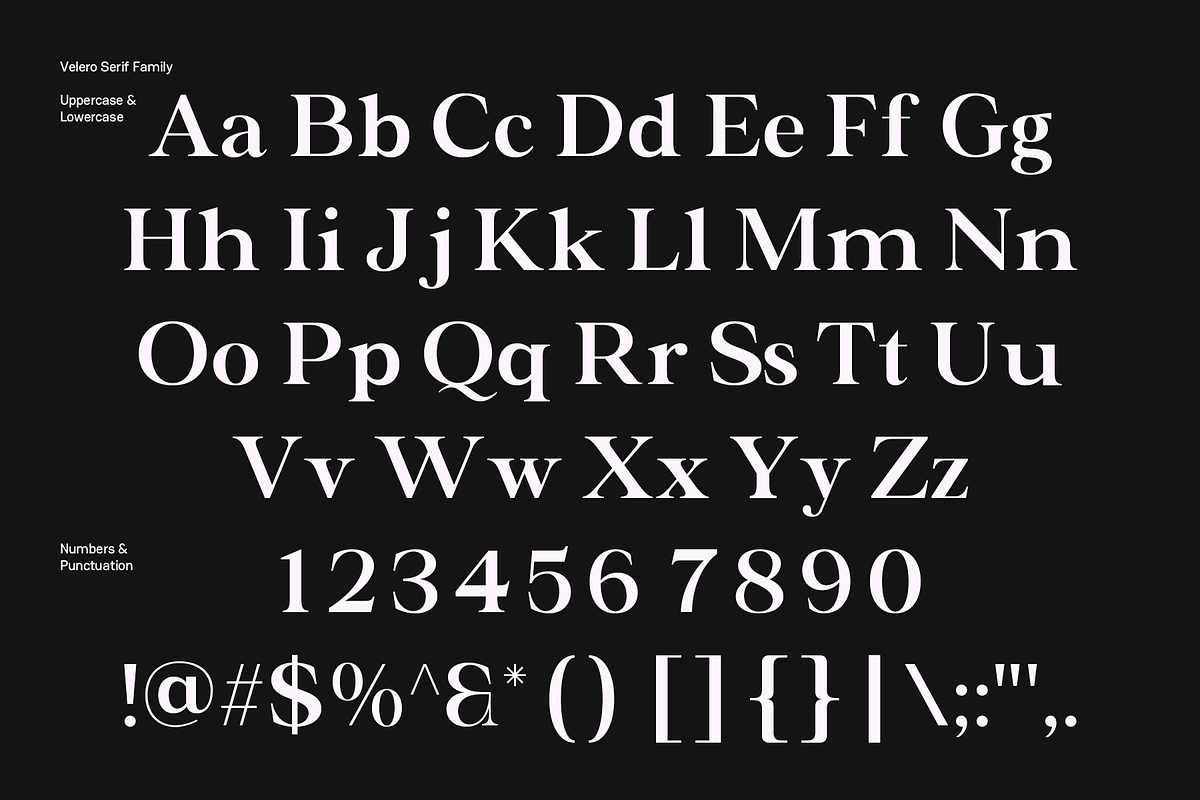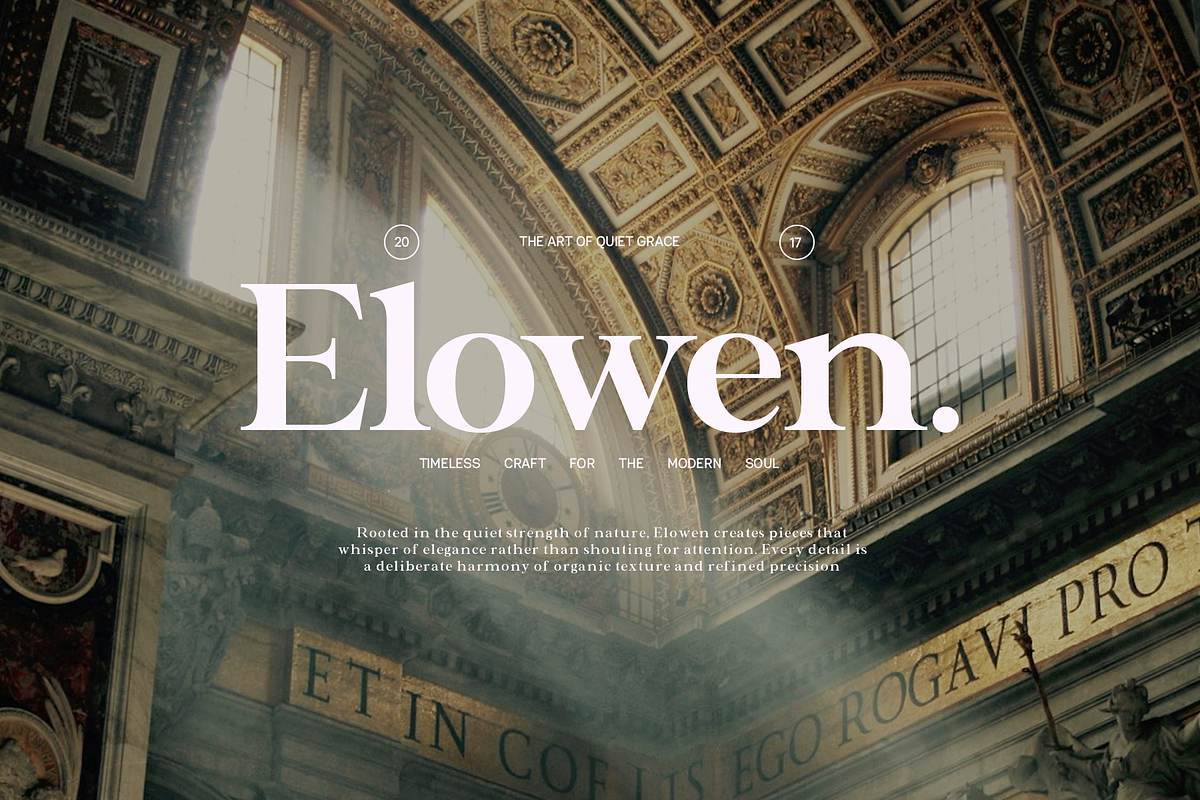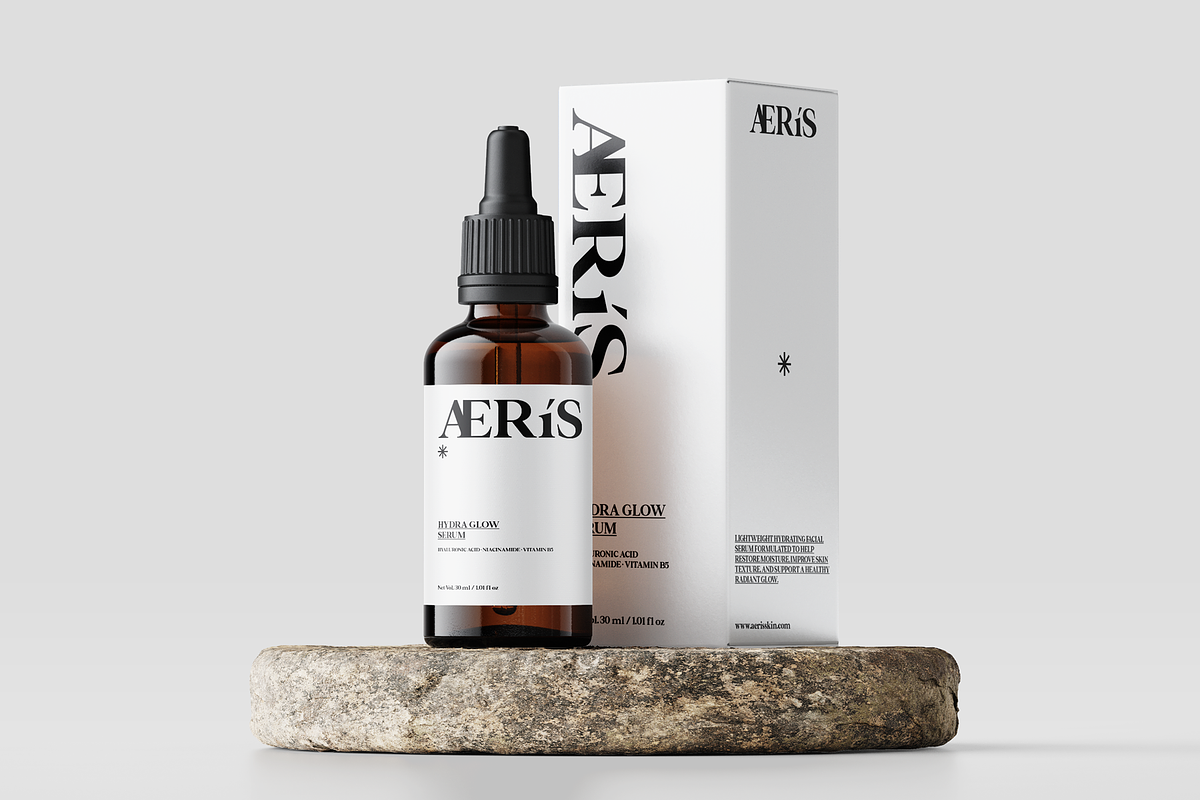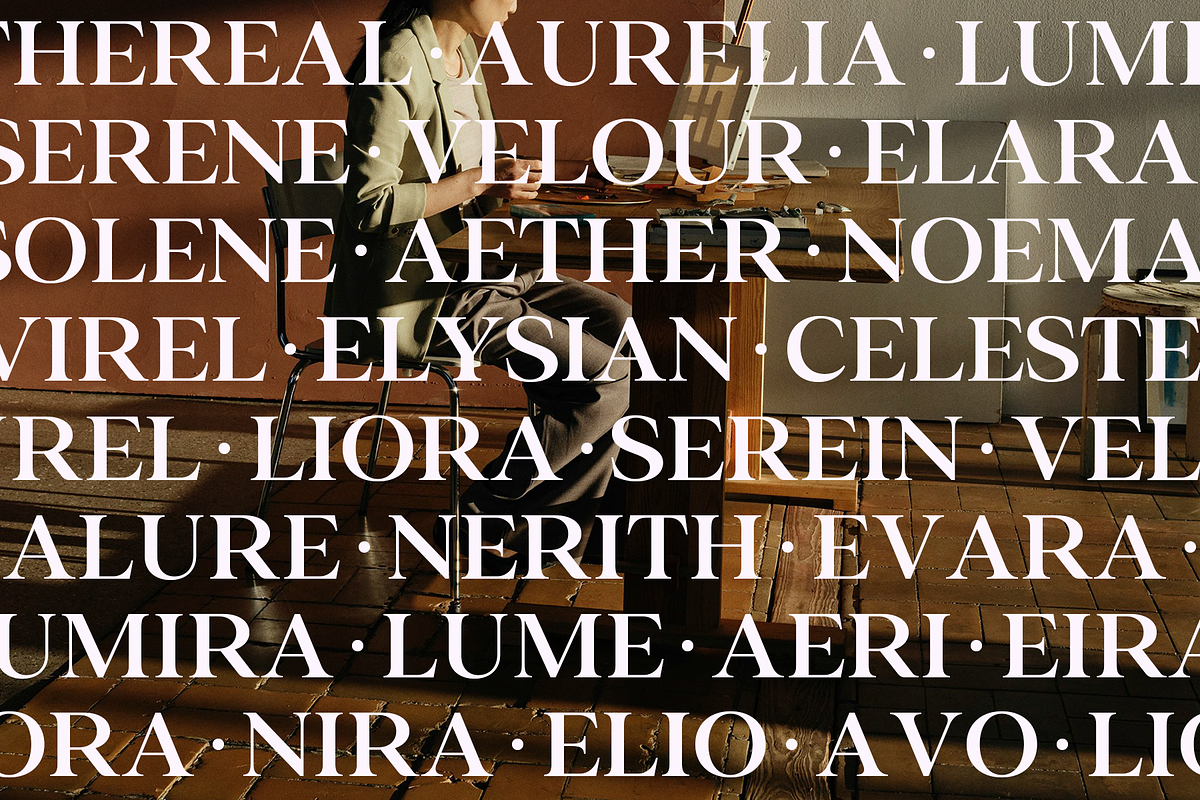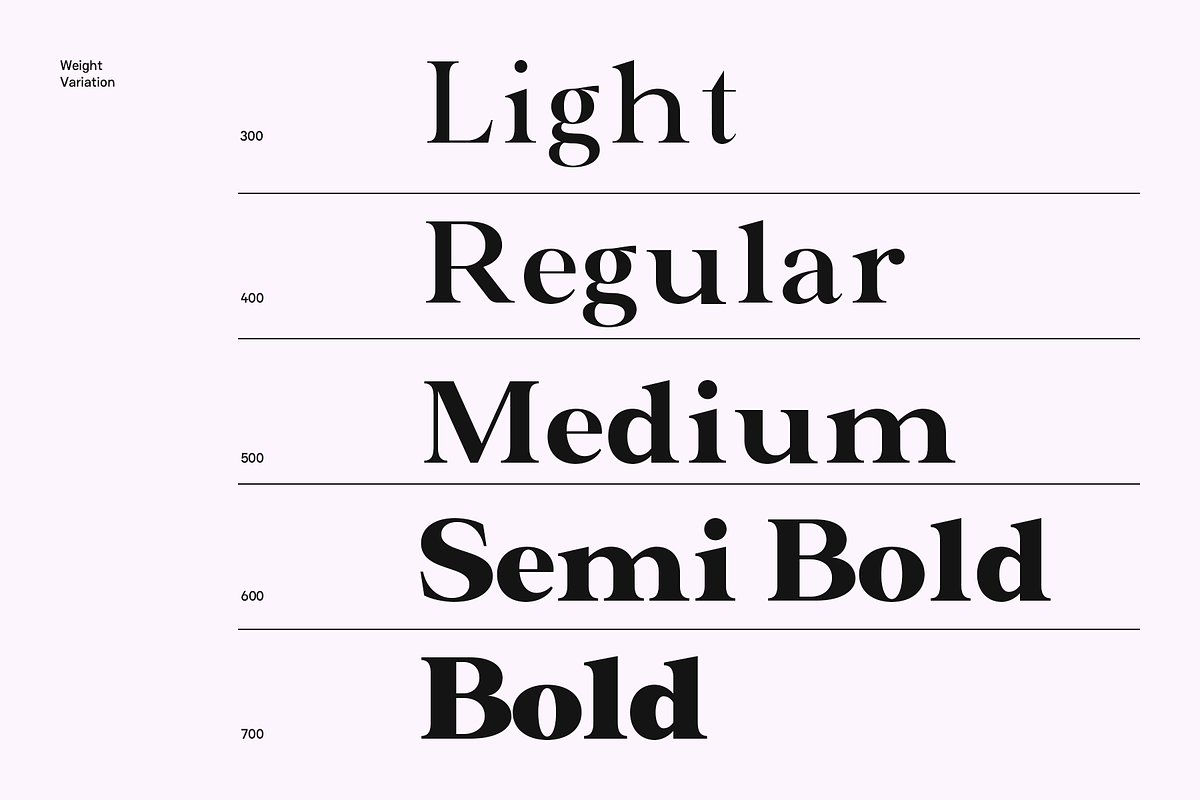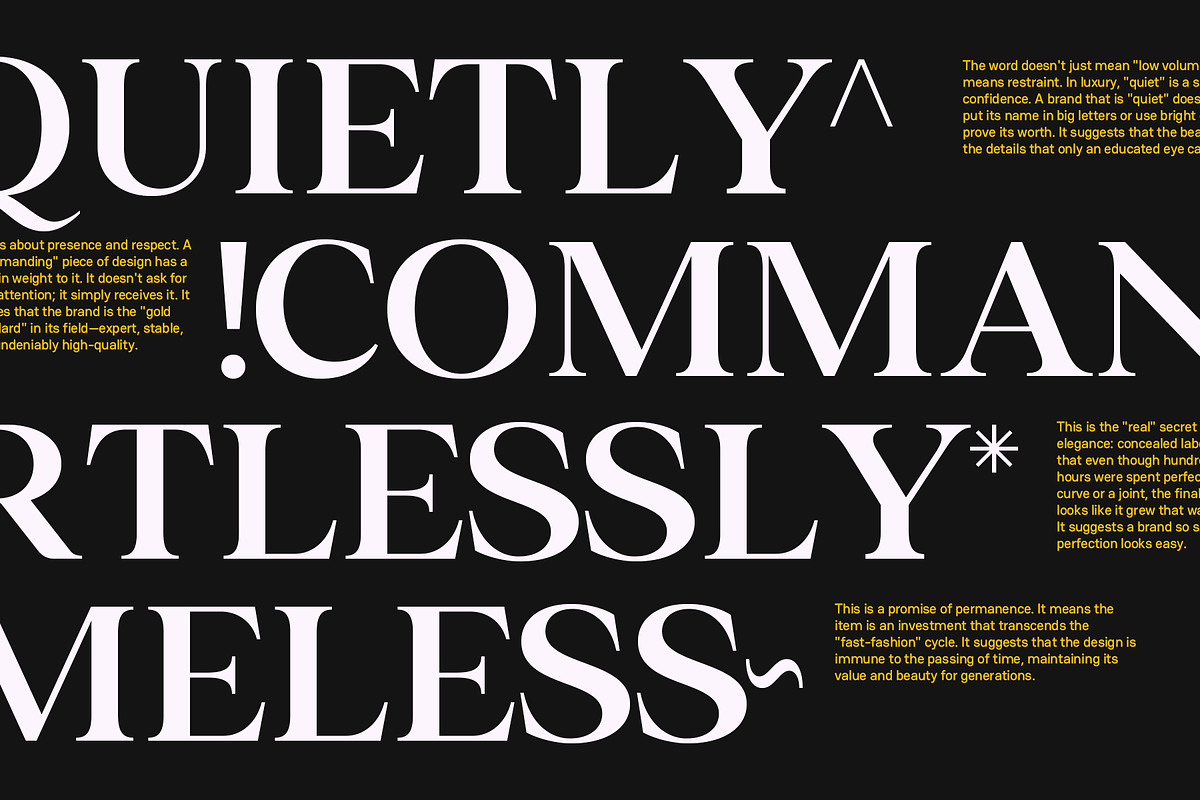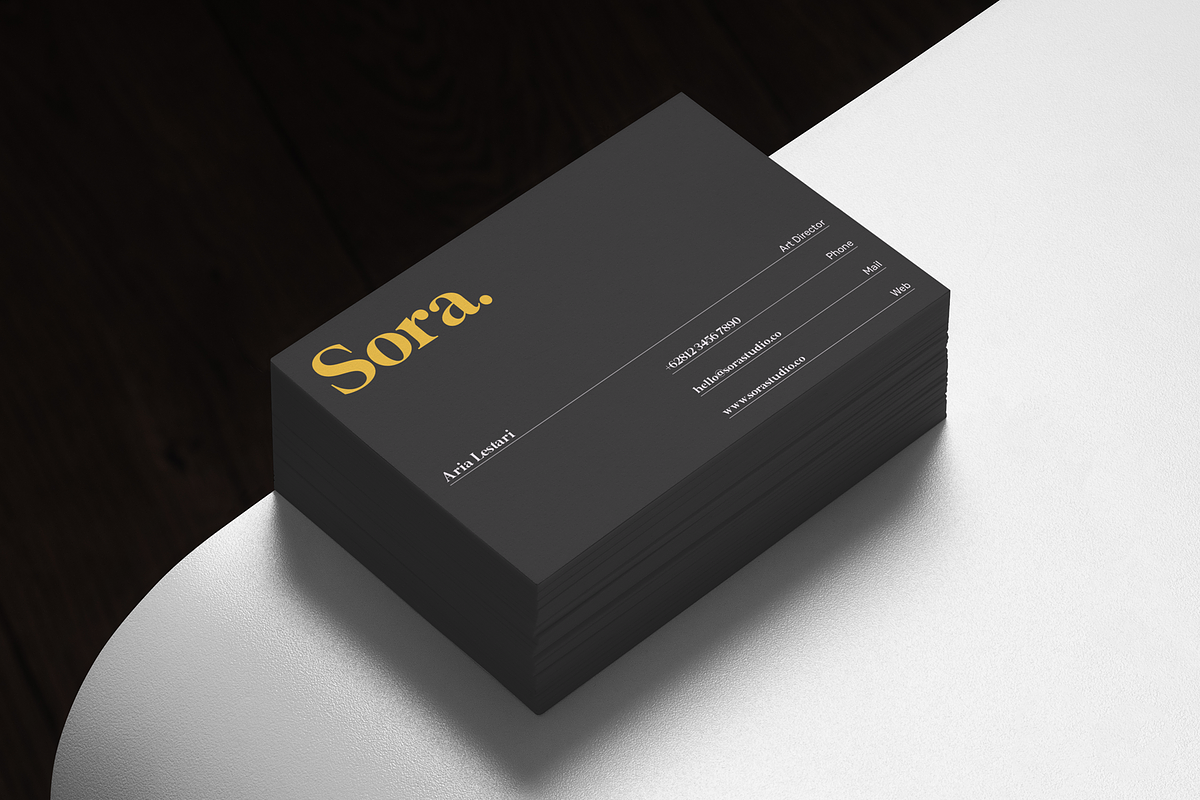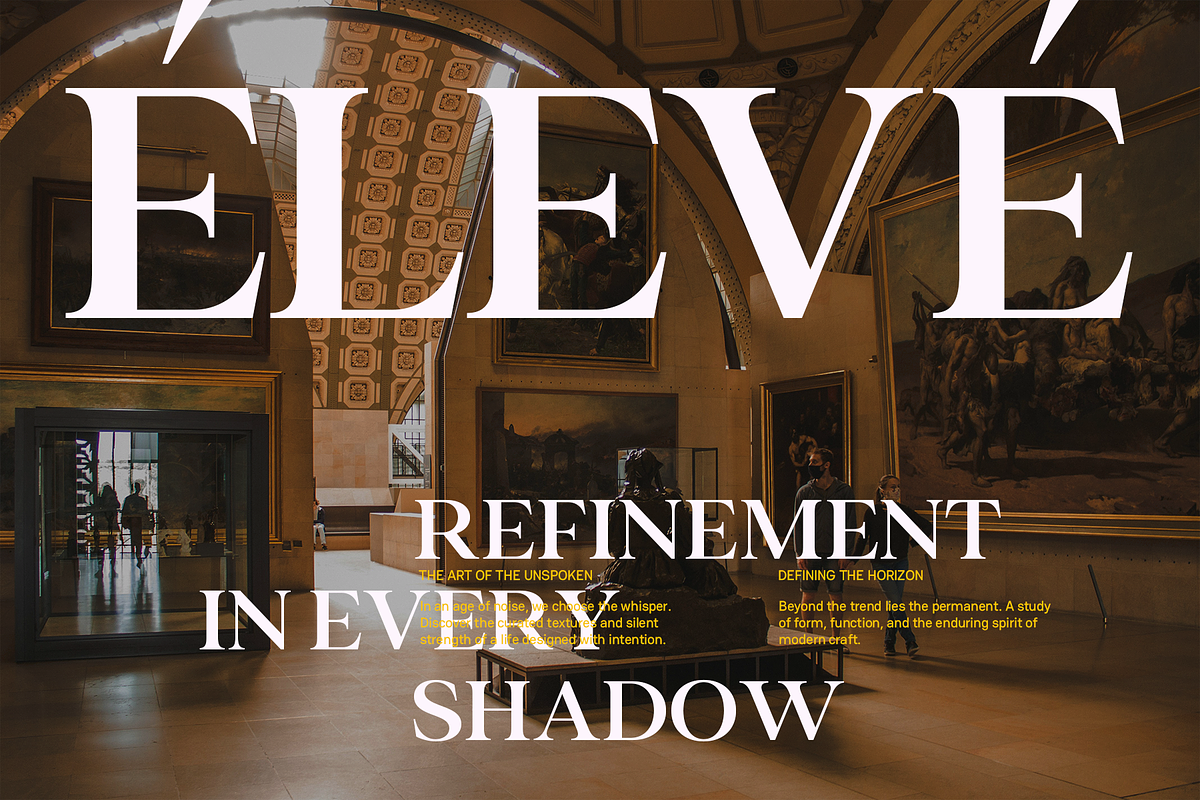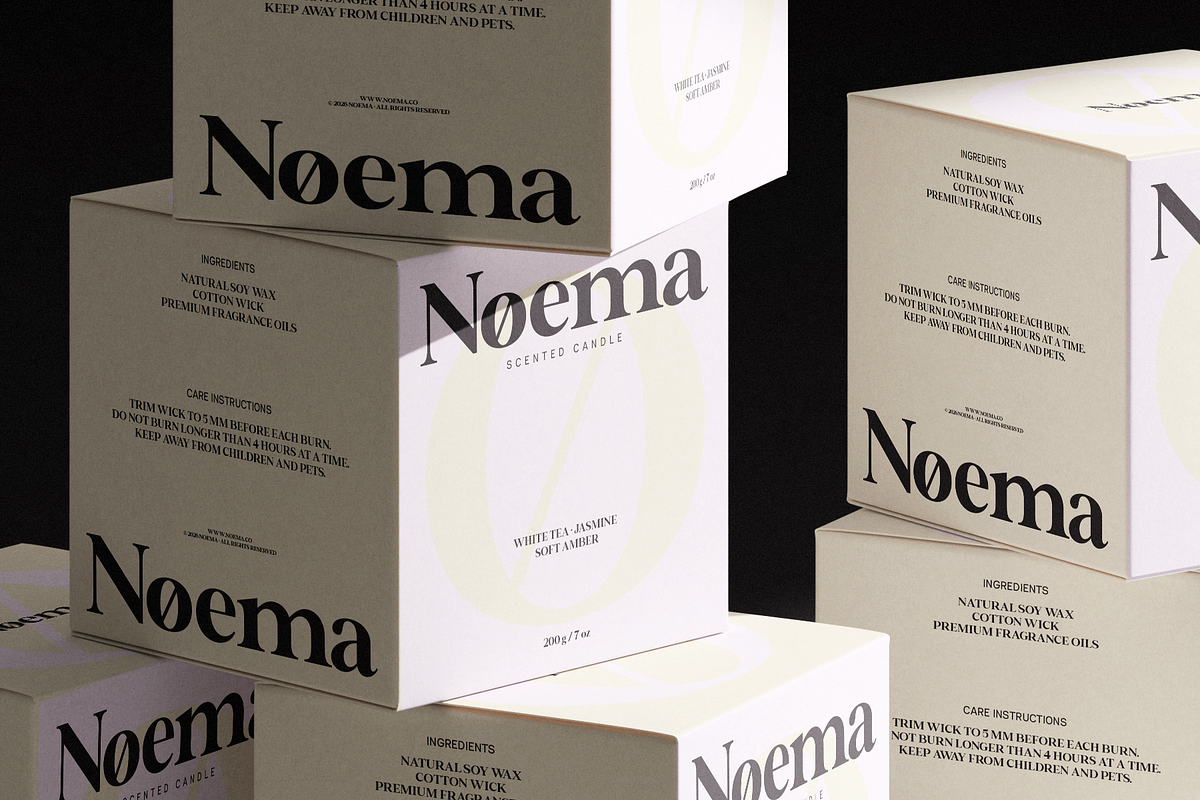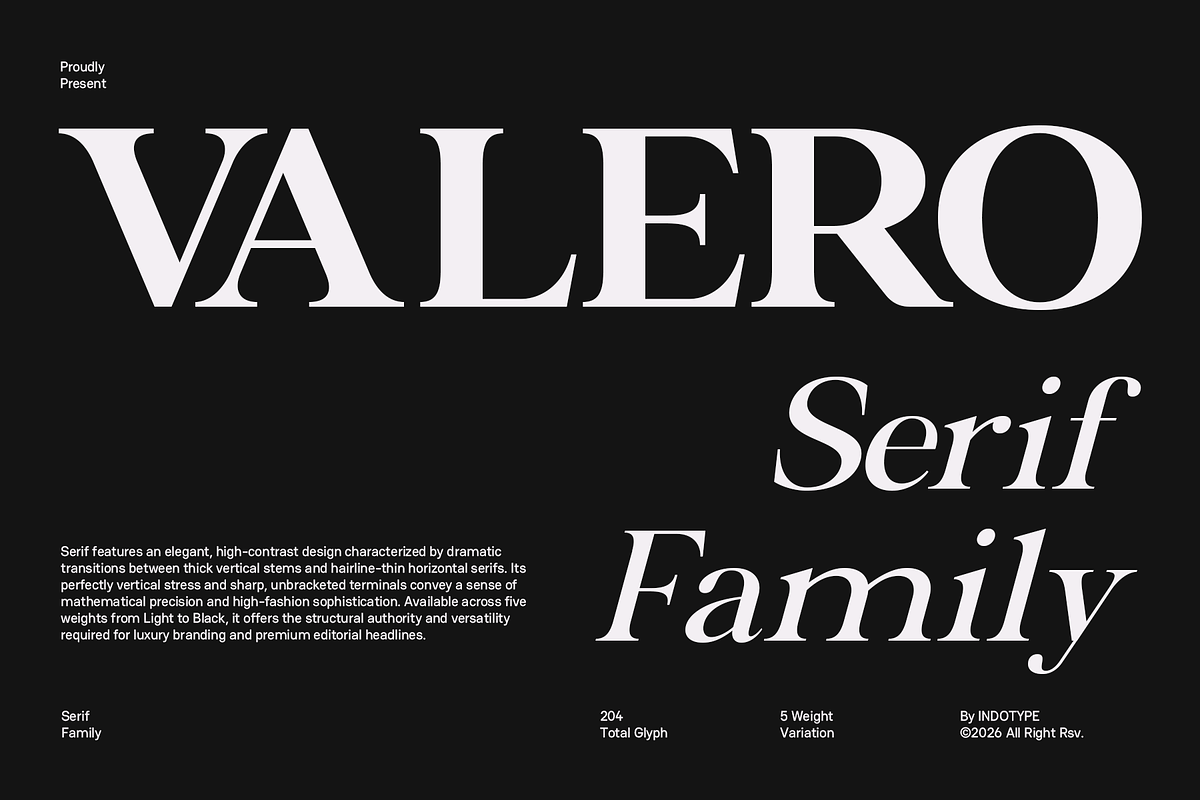
Valero - Classic Serif Family
Valero is a high-contrast classic serif typeface designed for luxury branding, premium editorial design, and high-fashion visual communication. Crafted by INDOTYPE, Valero draws from the tradition of rational, neoclassical serif typography while pushing into bold contemporary territory. Its dramatic stroke contrast — with thick vertical stems paired against hairline-thin horizontal serifs — creates a visual tension that commands attention at any scale. Design Characteristics Valero's letterforms are built on a foundation of perfectly vertical stress, giving the typeface a mathematical exactness that reads as authoritative and self-assured. The sharp, unbracketed serifs — narrow and geometric — reinforce its high-fashion sensibility, echoing the aesthetic codes of luxury couture and premium publishing. The generous x-height ensures excellent legibility in both display and subheading applications, while the open counters maintain clarity even at smaller sizes. Optically refined character spacing and carefully balanced proportions make Valero a versatile performer across print and digital mediums. Each glyph has been drawn to feel simultaneously timeless and contemporary — a serif that belongs equally in a Vogue editorial spread and a modern tech brand's annual report. Weights & Styles The Valero Serif Family is available in 5 weights: Light, Regular, Medium, SemiBold, and Bold — spanning a broad tonal range from delicate editorial refinement to commanding display impact. Each weight is accompanied by an italic variant, expanding the family's expressive range for subheadings, captions, pull quotes, and decorative typesetting. With 204 total glyphs per style, Valero supports comprehensive Latin character coverage including standard punctuation, currency symbols, ligatures, and diacritical marks — making it suitable for multilingual publishing across Western European languages. Ideal Use Cases Valero is engineered for applications where typographic elegance is non-negotiable. It excels in: luxury and fashion brand identities, magazine and editorial headlines, book cover design, packaging for premium consumer goods, high-end invitations and stationery, and digital brand experiences for lifestyle, beauty, and hospitality sectors. The heavier weights (Bold and Black) are particularly striking for display headline applications where visual impact is paramount. The Light and Regular weights perform gracefully in subheading and caption roles, creating elegant typographic hierarchies when paired with clean sans-serif body text.